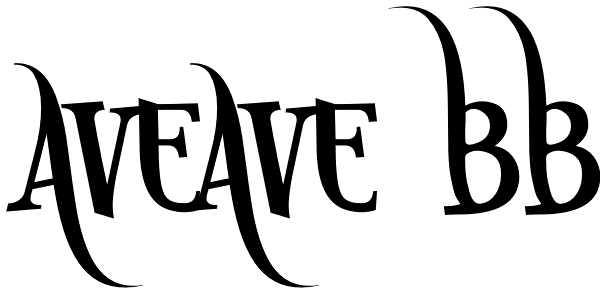
AvéAvé BB
Mix and match the upper and lowercase keys to access swash and non-swash letters in this unconventional serif font with a plethora of European characters.
AveAve BB Font